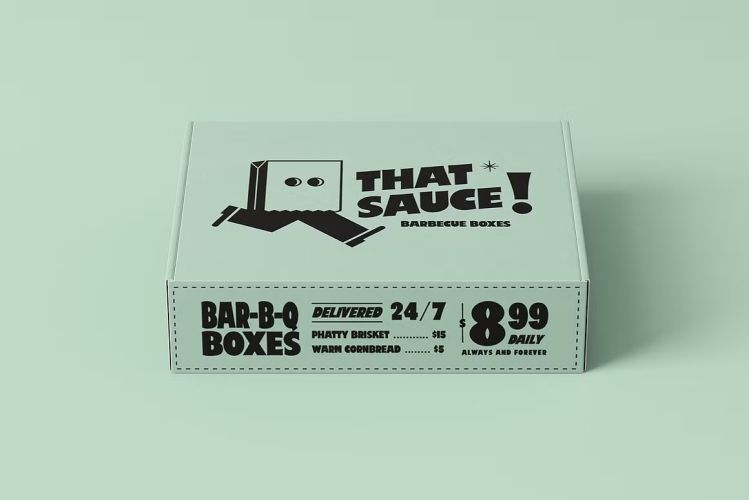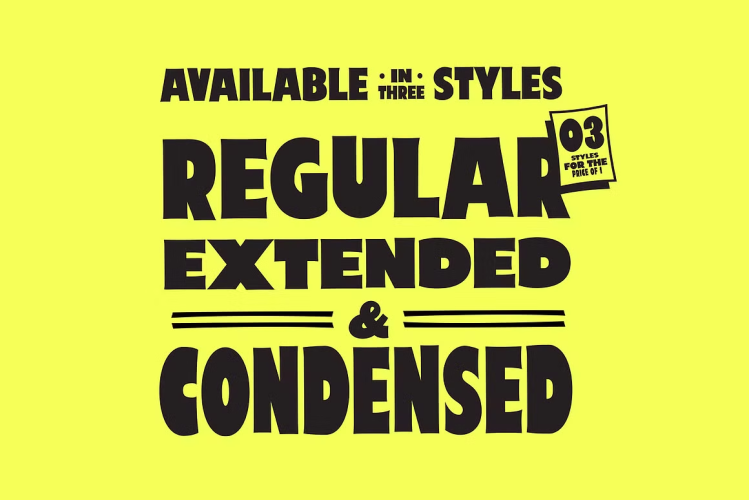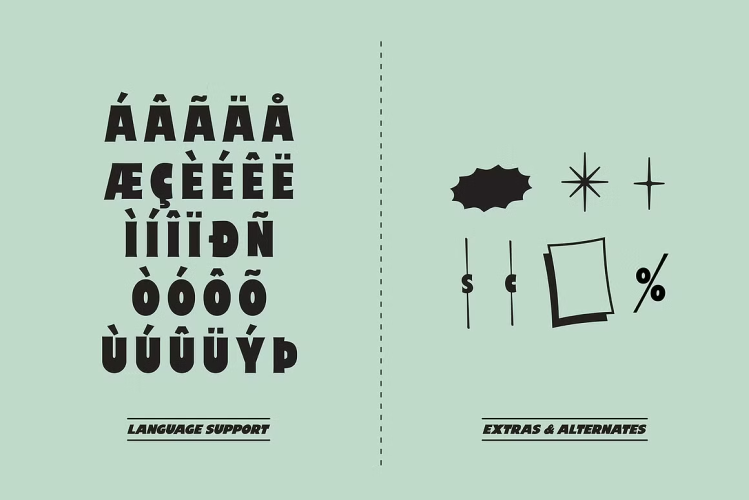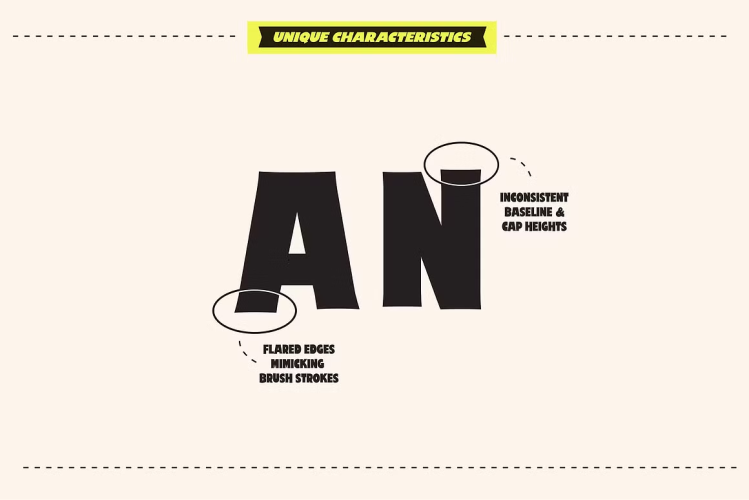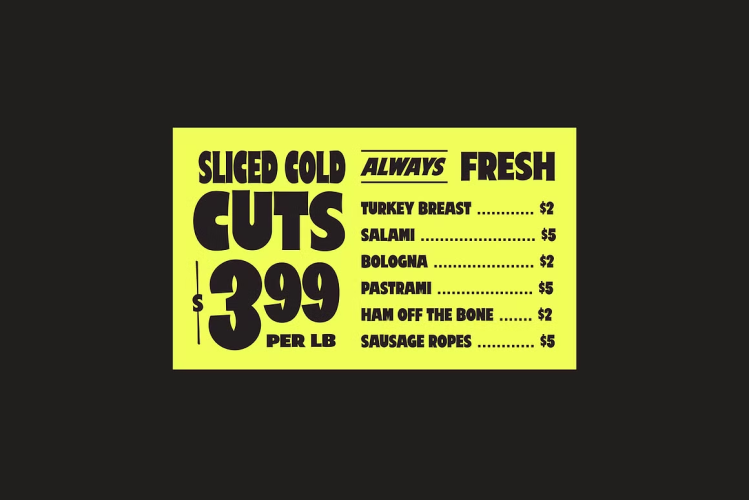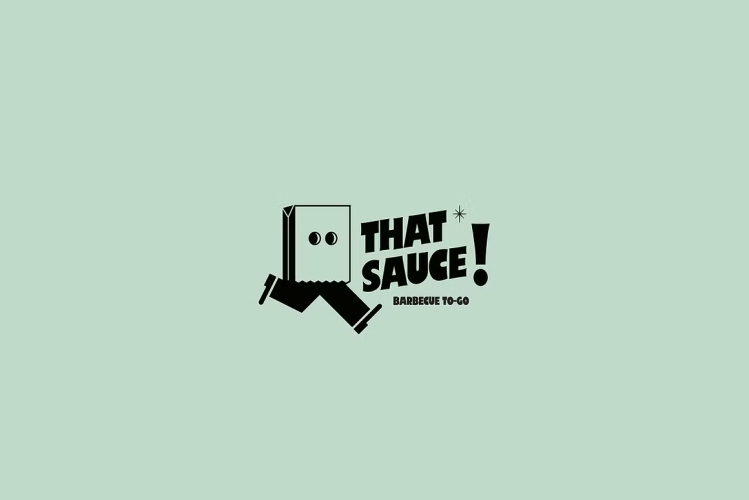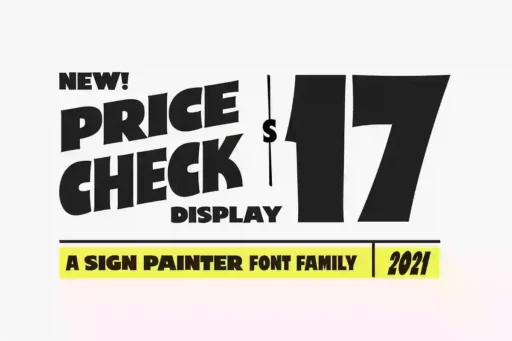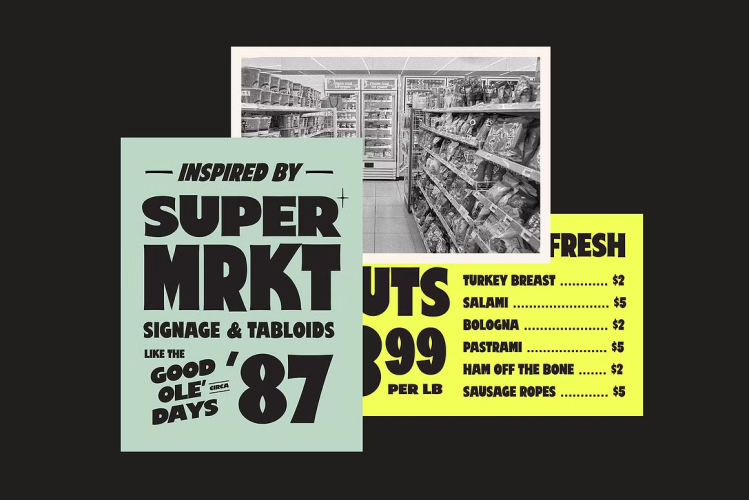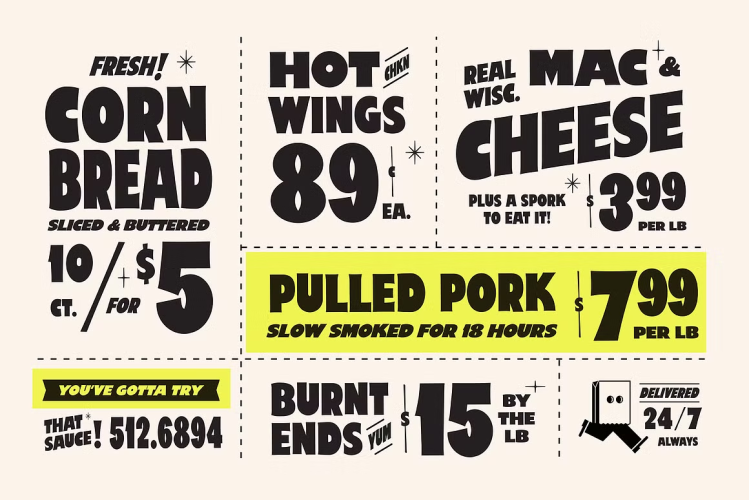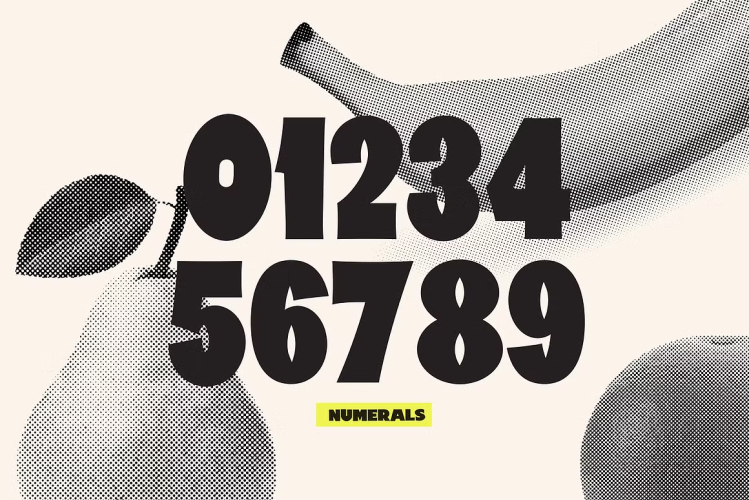
Price Check Font
Introducing the Price Check Font, a display typeface carefully designed to embody the imperfection inherent in hand-painted characters typical of mid to late 20th-century supermarket signage.
Price Check utilizes a heavy-handed sans-serif design featuring slightly flared edges for a somewhat brushy or sketchy effect. In actual sign painters’ style, Price Check masters the imperial effect through manual paper typographic techniques, carving imperfections that endow it with character and authenticity. Specifically, chosen characters, the “N,” for example, have an uneven baseline and cap heights, which produce a skipping rhythm as you type. On top of this, the characters have slightly arched vertical and horizontal strokes, which reflect the interaction of a brush with paper.
With three different font styles, Price Check lets you employ loud typography statements in your packaging and branding designs. Whether you want to bring in a retro feel or make your designs pop with bold impact, Price Check gives you that flexibility and genuine effect.
Price Check draws attention to nostalgia and supports contemporary design works like vintage items. Its hand-painted appeal lends a calmness and distinctive flavor to the brand packaging, advertising, and promotional methods, thus attracting viewers to it. Be it product tagging, signages, digital images, or their visual mechanics in general, Price Check allows us to boost our works and creates such a difference that buyers get dazzled by their design aesthetics.
3 different types of styles:
4 Vector Extras, commonly used shapes, and elements from hand-painted signs such as Starbursts and 3D frames.
3 Alternate characters and smaller, more stylized versions of the dollar, cent, and percent signs.
Furthermore, it offers Diacritics & Umlauts for multi-language support through glyphs shared in Latin script characters in English, French, Spanish, German, Swedish, Norwegian, and Danish.
Where Price Check Font works best
Price Check Font is built for size: event posters, hero headlines and billboard-style layouts.
High contrast display type like Price Check Font reads instantly in thumbnails and motion graphics.